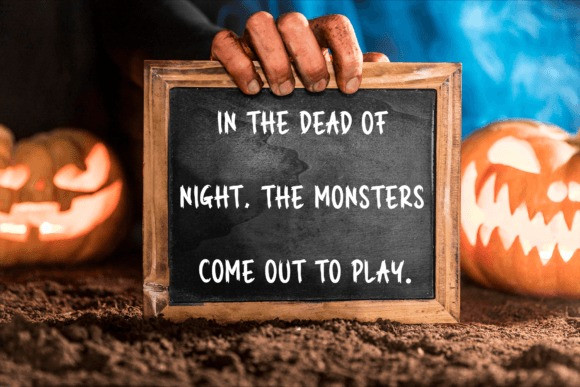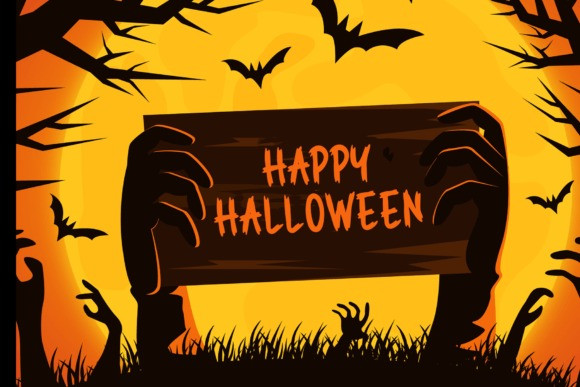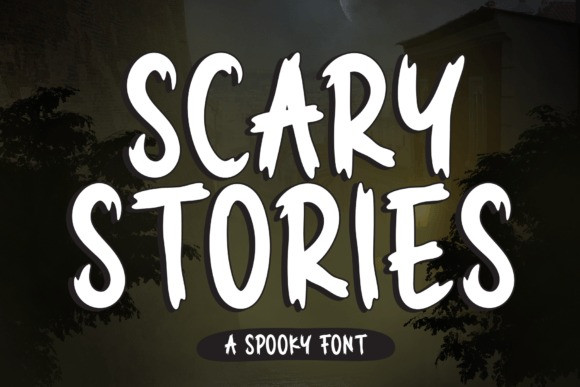
Scary Stories Font
Scary Stories Font is a unique and interesting display font. A little bit quirky, this font looks incredibly adept on a wide variety of contexts!